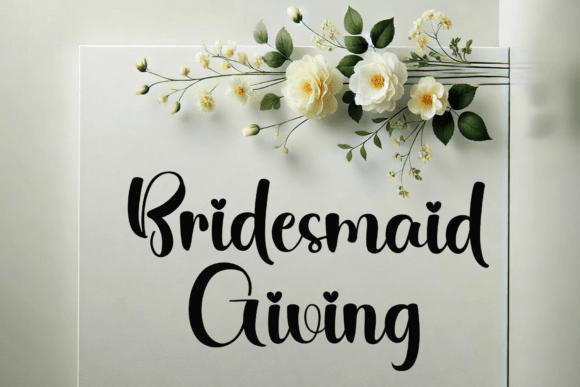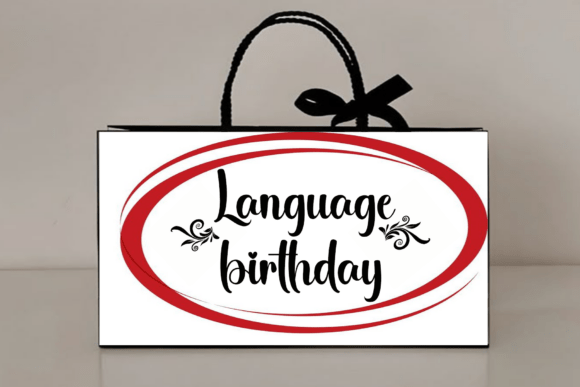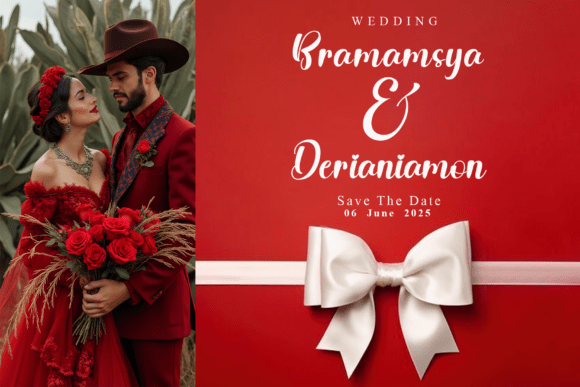
Introduction to Mama Dream Font
Mama Dream is a stylish and incredibly elegant script font.
Why Choose Mama Dream Font?
Mama Dream Font offers exceptional quality and versatility, making it a valuable addition to your design toolkit. Whether you’re creating for personal projects or commercial use, Mama Dream Font delivers professional results.